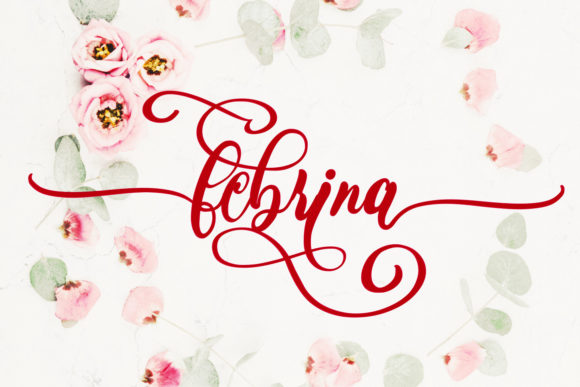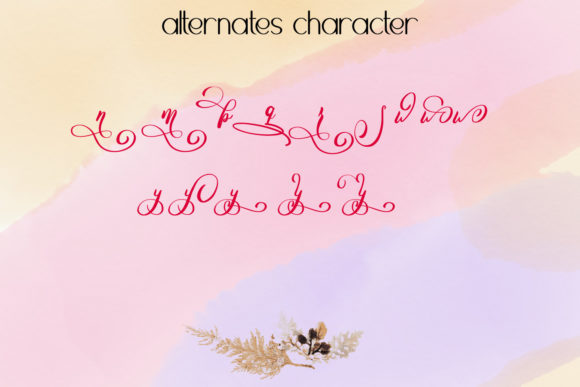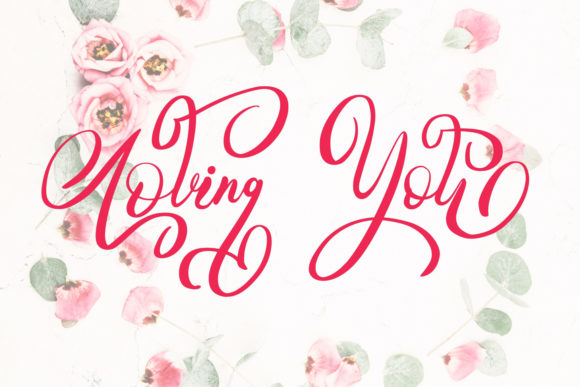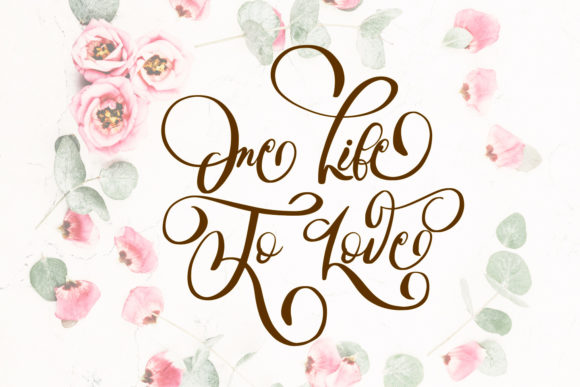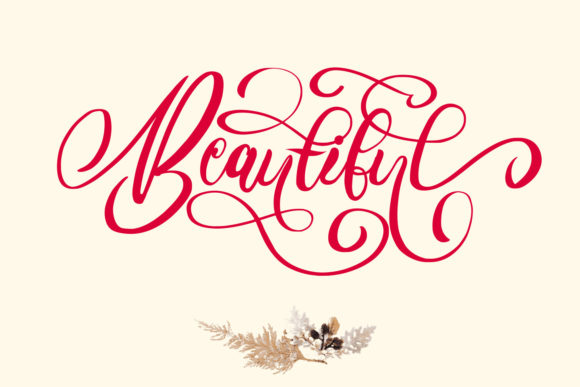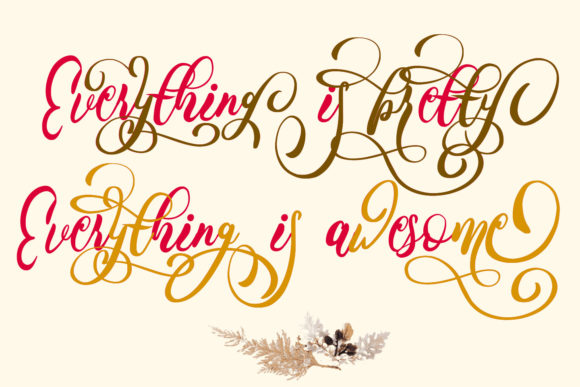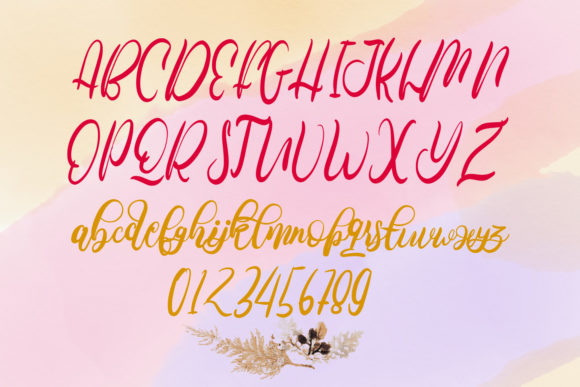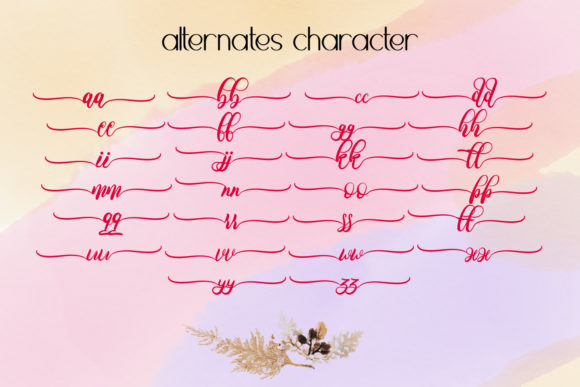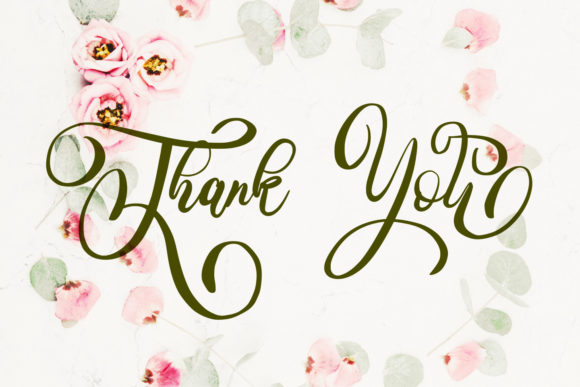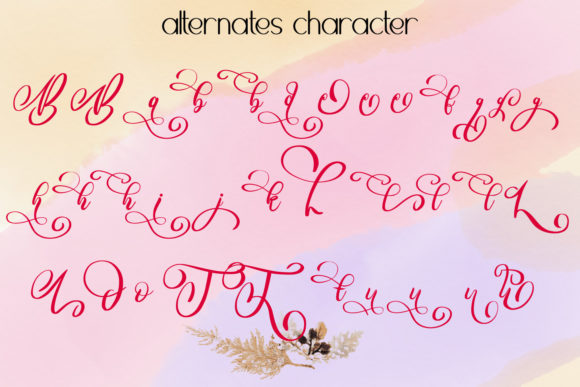
Febrina Font
About Febrina Font
Febrina is beautiful calligraphy font that has a lot of pretty alternate characters. just play with its combinations and you will get a beautiful and charming result.